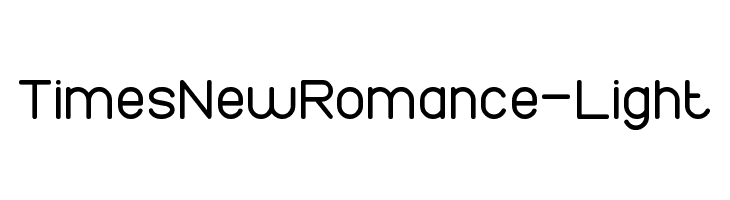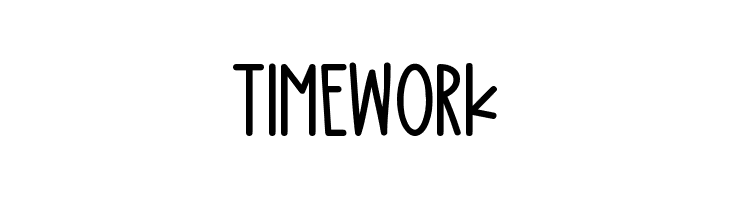
A bold, brushstroke-style font with dynamic and textured characters.
A bold, thorn-inspired font with sharp, edgy details.
A bold, dynamic brush script font with expressive strokes and a hand-painted look.
A modern, geometric font with clean lines and angular shapes.
A bold, modern sans-serif font with rounded edges and consistent character height.
A bold, italicized sans-serif font with a modern and sleek design.
A sleek, modern italic font with a condensed width and medium contrast.
A modern, geometric sans-serif font with tall, narrow characters and uniform stroke width.
A modern, clean sans-serif font with uniform stroke width and cohesive design.